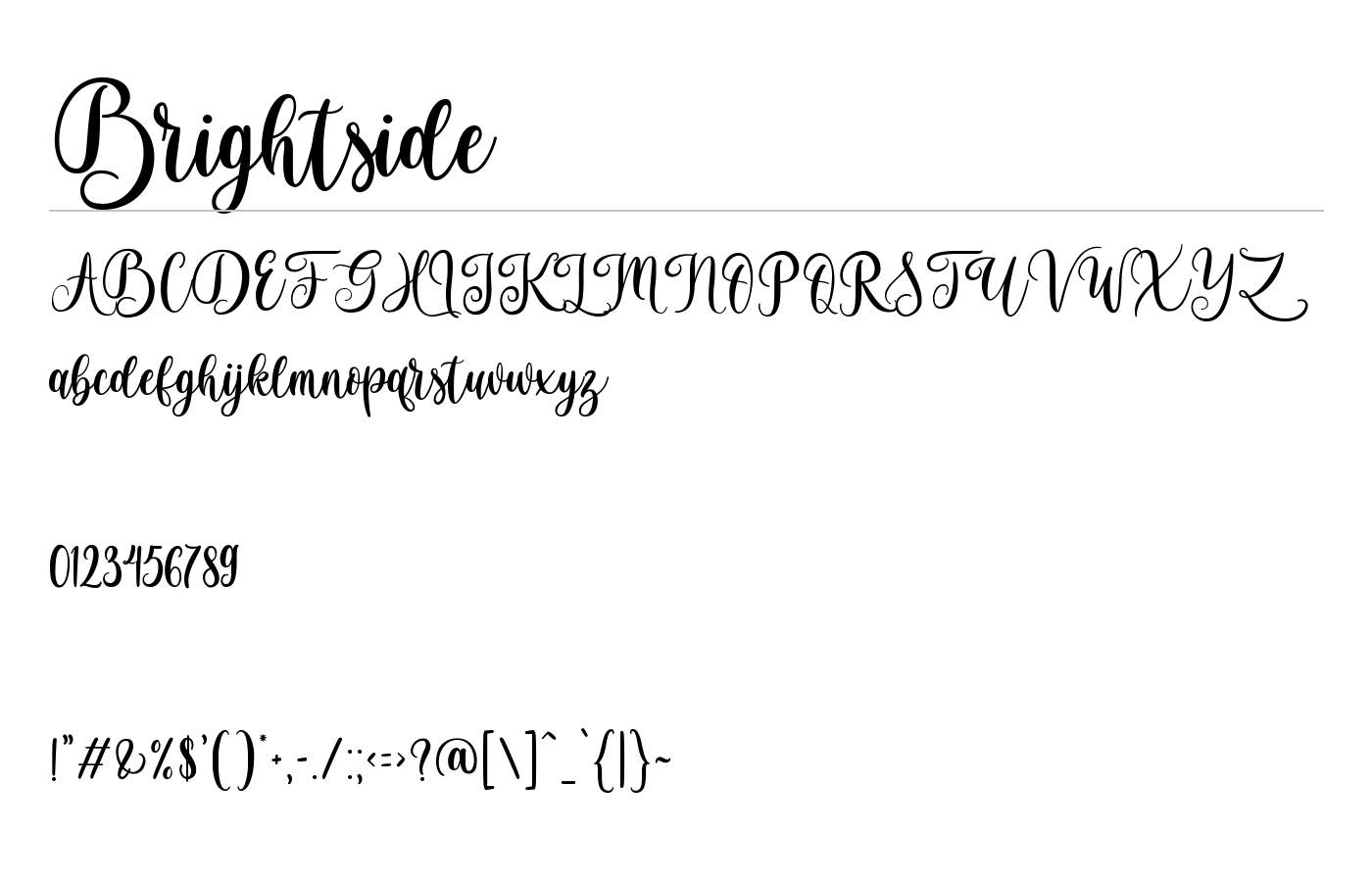
Brightside is an elegant script font featuring flowing, calligraphic letterforms with a delicate contrast between thick and thin strokes. Its smooth, cursive style and charming details make it perfect for projects seeking a refined, feminine, and sophisticated touch, such as wedding invitations, branding for luxury or beauty products, and stylish editorial headlines. The font’s graceful curves and unique letter shapes offer a warm, inviting personality that works beautifully in decorative and formal contexts.
Brightside Font
About Brightside Font